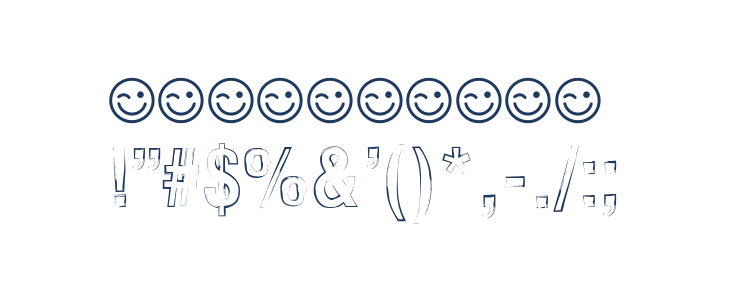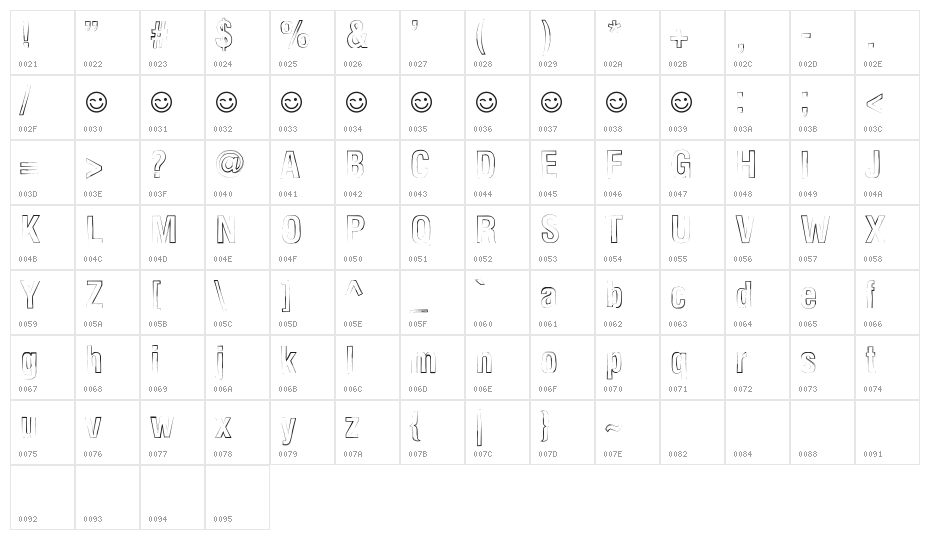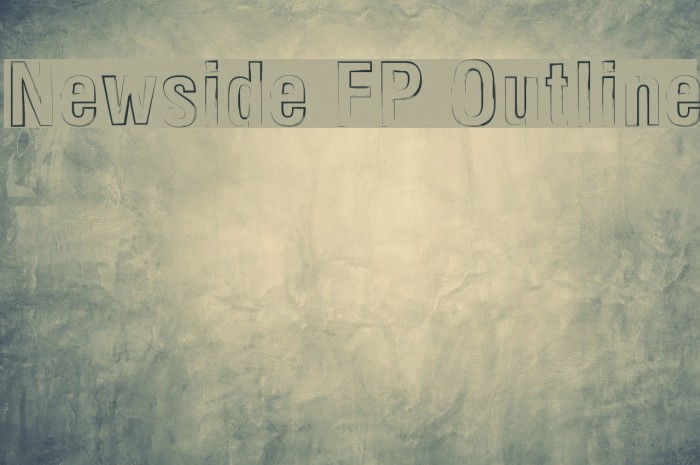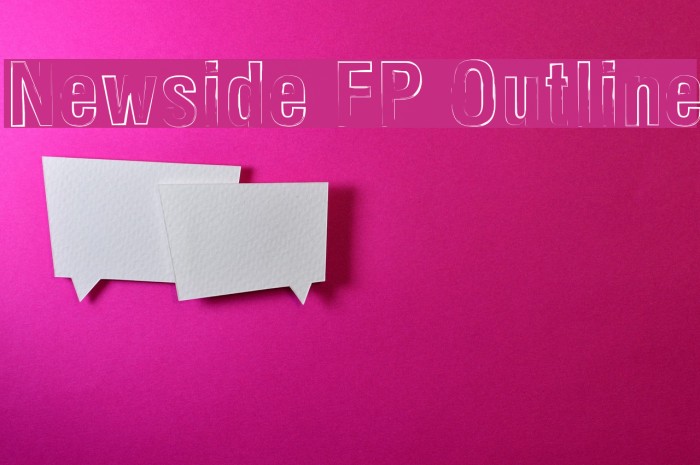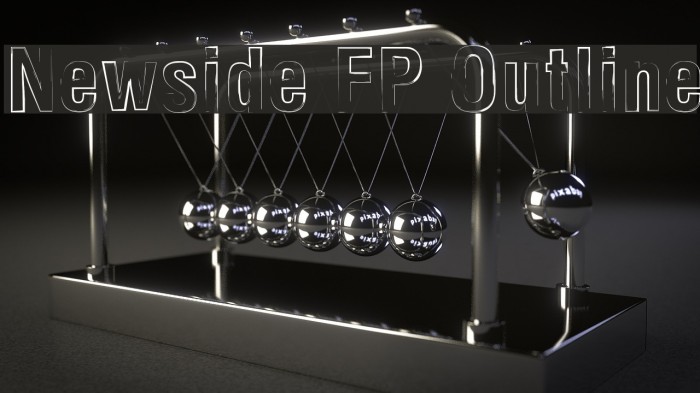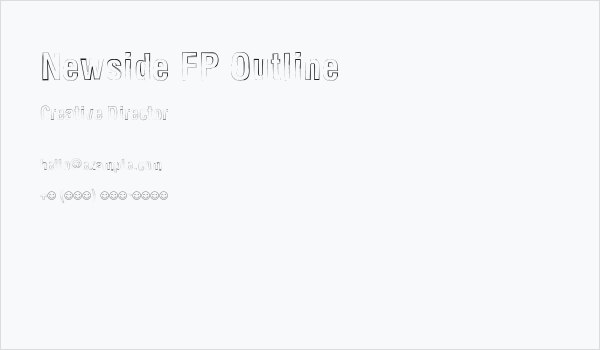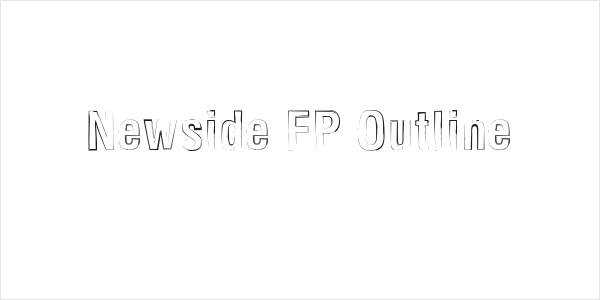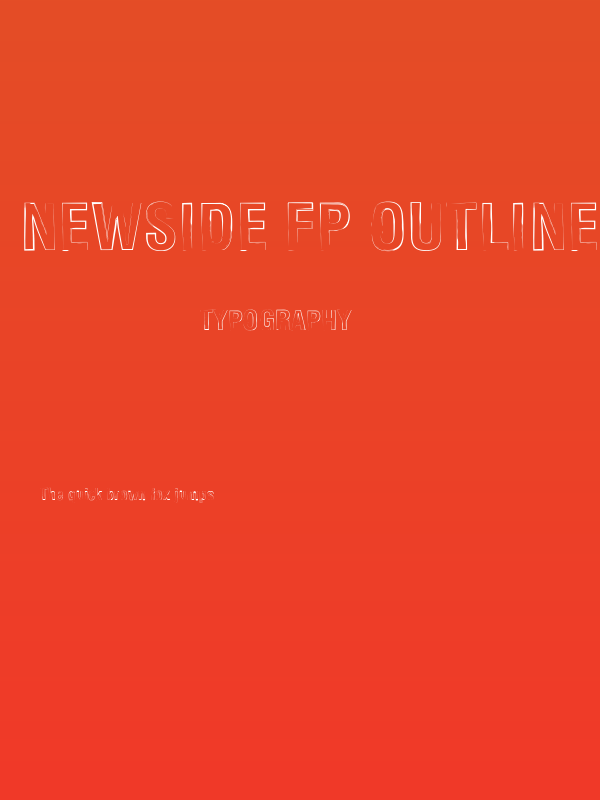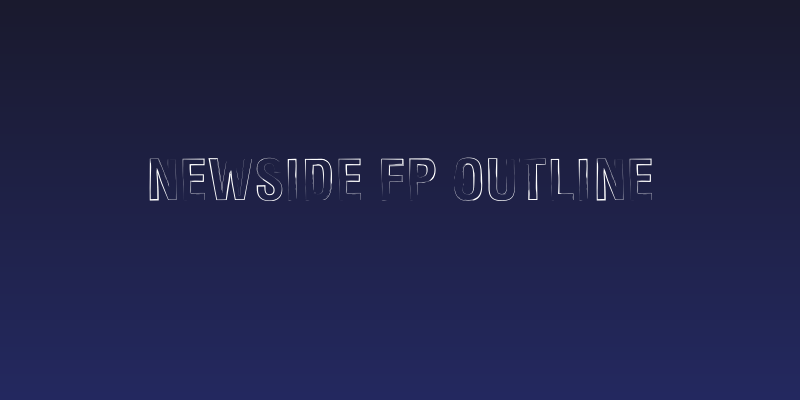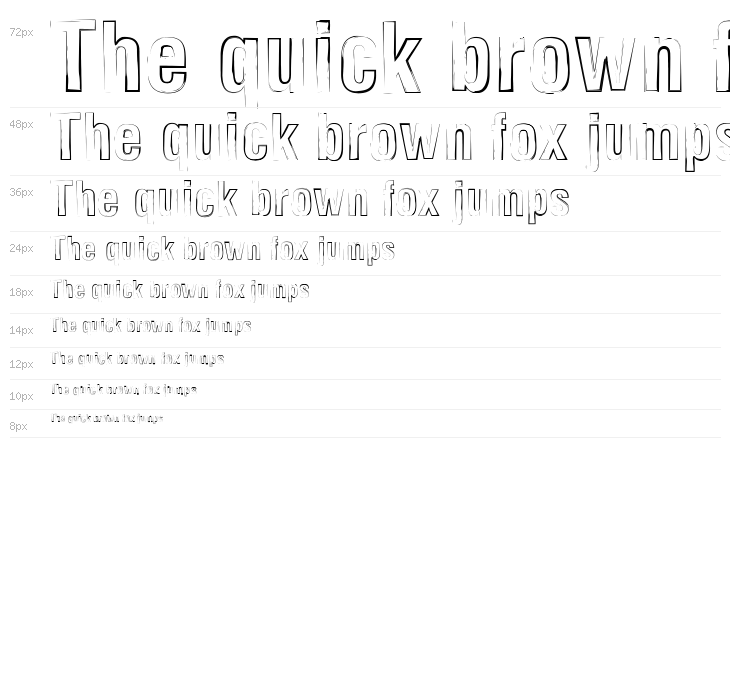
Newside FP Outline Font
Newside FP Outline Description
This font features a modern and clean outline style, characterized by its bold and geometric letterforms. The uppercase and lowercase letters maintain a consistent width, providing a balanced and uniform appearance. The numerals and special characters are designed to match the overall aesthetic, ensuring a cohesive look across all text elements. The outline effect adds a unique dimension, making it suitable for eye-catching designs. The spacing between characters is normal, allowing for easy readability while maintaining a stylish edge.
| Proposed Projects | Ideal for headlines, posters, branding, and any design project requiring a striking and contemporary look. |